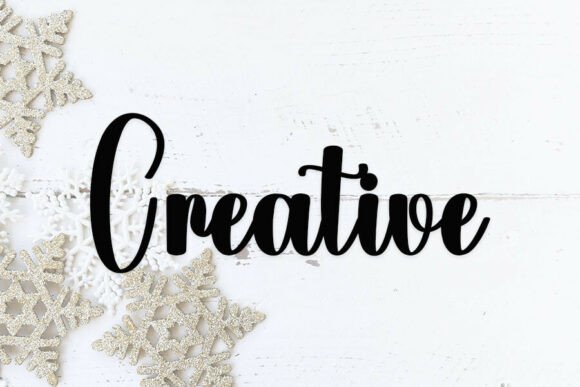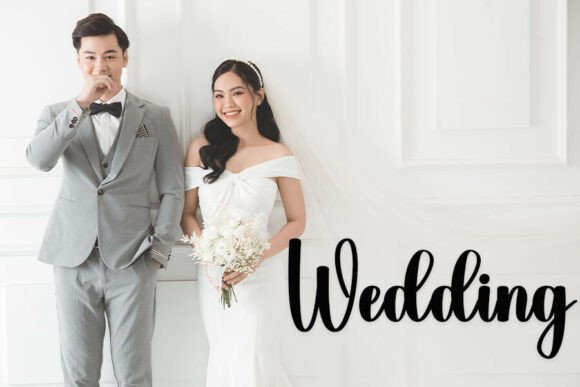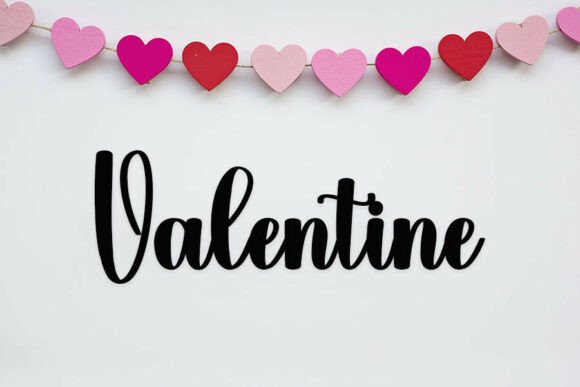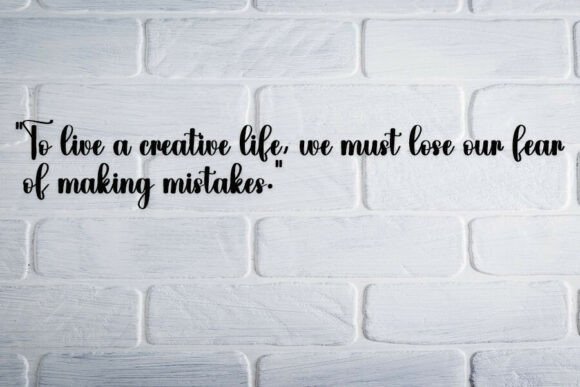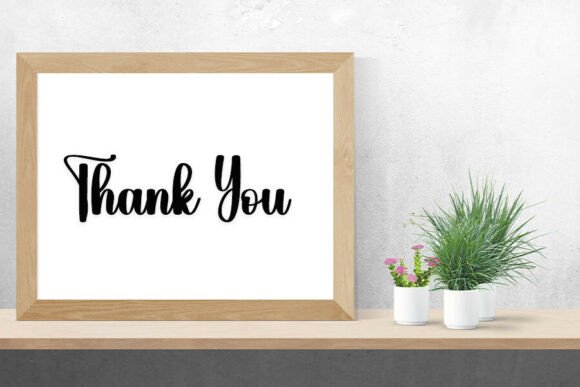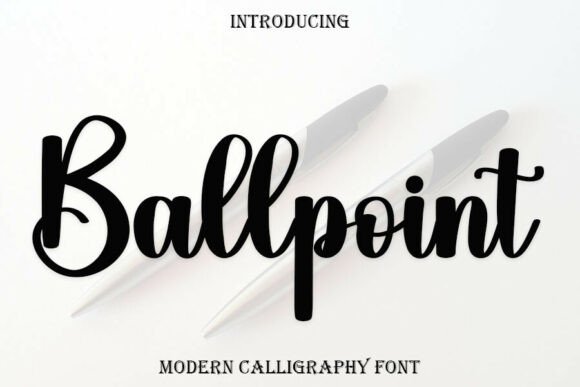
Introducing Ballpoint Font: Elevate Your Designs with a Delicate Handwritten Touch
In the world of typography, fonts play a crucial role in conveying the tone and personality of a design. For those seeking a cool and unique aesthetic, Ballpoint font is an excellent choice. This carefully crafted handwritten font is perfect for adding a touch of elegance and sophistication to various design projects. In this article, we’ll explore the features and applications of Ballpoint font, and why it’s a must-have for designers and crafters.
What is Ballpoint Font?
Ballpoint font is a delicate handwritten font designed to bring a sense of refinement and style to your designs. Its unique charm lies in its subtle imperfections, which give it a humanized and approachable feel. The font’s intricate details and carefully crafted letterforms make it an excellent choice for a wide range of applications, from formal invitations to food product labels, and even titles for books, magazines, or movies.
Key Features of Ballpoint Font
- Handwritten with care: Ballpoint font is meticulously crafted to mimic the fluidity and expressiveness of handwritten text, making each letterform unique and characterful.
- Delicate and refined: The font’s subtle lines and curves create a sophisticated and elegant look, perfect for designs that require a touch of refinement.
- Versatile and adaptable: Ballpoint font can be used for a variety of applications, from formal to informal, and can be easily paired with other fonts to create a unique visual identity.
- Easy to read: Despite its delicate nature, Ballpoint font remains highly legible, making it suitable for body text, titles, and headings.
Applications of Ballpoint Font
Ballpoint font’s versatility makes it an excellent choice for a wide range of design projects. Here are some ideas to get you started:
- Invitations and stationery: Add a touch of elegance to your wedding invitations, birthday cards, or formal letters with Ballpoint font.
- Food and beverage branding: Use Ballpoint font to create eye-catching labels for food products, restaurants, or cafes, and give your brand a unique and memorable identity.
- Titles and headings: Elevate your book titles, magazine headings, or movie posters with Ballpoint font’s sophisticated and refined look.
- Packaging and labels: Add a personal touch to your product packaging with Ballpoint font, making your brand stand out on store shelves.
Why Choose Ballpoint Font?
In a world where digital designs dominate, Ballpoint font offers a refreshing alternative. Its handmade quality and delicate appearance make it an attractive choice for designers seeking to add a human touch to their work. By choosing Ballpoint font, you’ll be able to:
- Stand out from the crowd: Ballpoint font’s unique character will help your designs stand out in a sea of digital typography.
- Convey emotion and personality: The font’s handmade quality allows you to convey a sense of warmth and personality in your designs.
- Elevate your brand: Ballpoint font’s sophisticated look makes it an excellent choice for brands seeking to establish a refined and elegant visual identity.
Ballpoint font is a versatile and elegant handwritten font that can elevate your designs to new heights. Its delicate appearance, carefully crafted letterforms, and versatility make it an excellent choice for a wide range of applications. Whether you’re a designer, crafter, or simply someone looking for a unique font to add to your collection, Ballpoint font is sure to impress. So why not give it a try and experience the power of Ballpoint font for yourself?